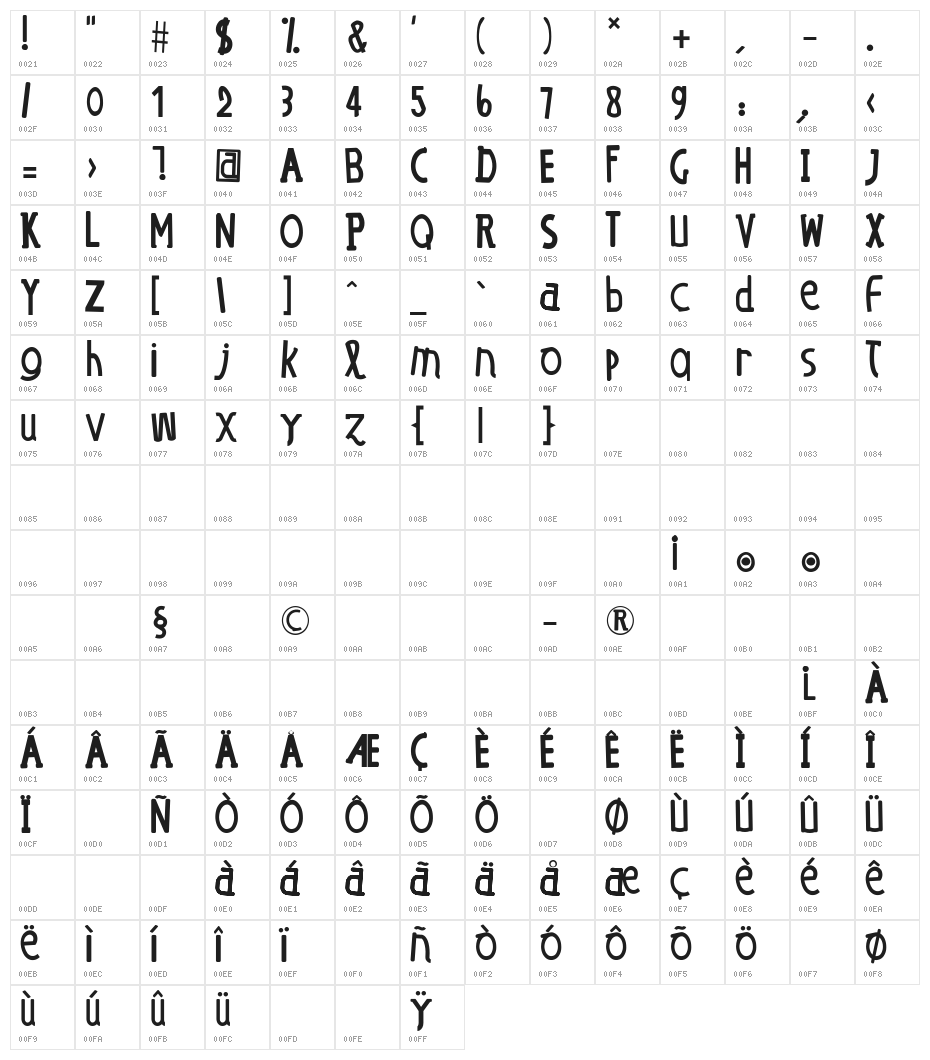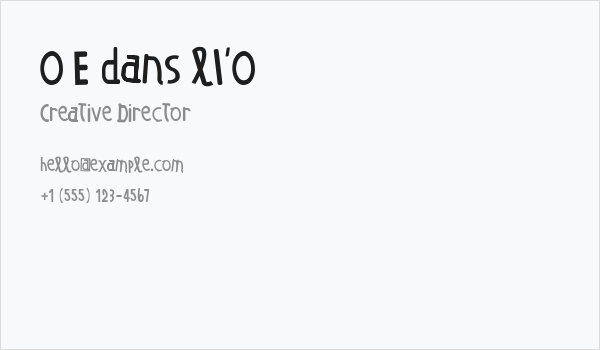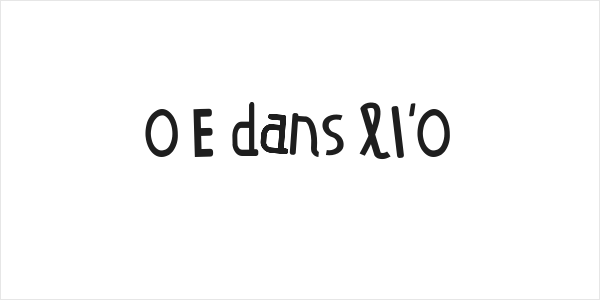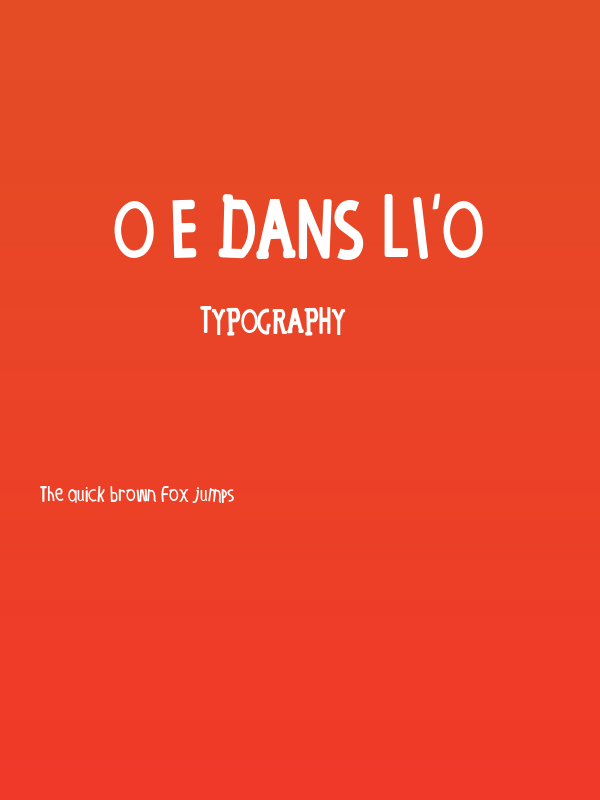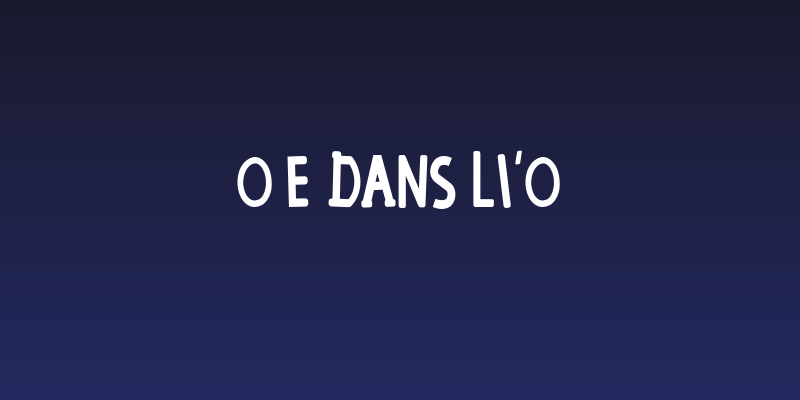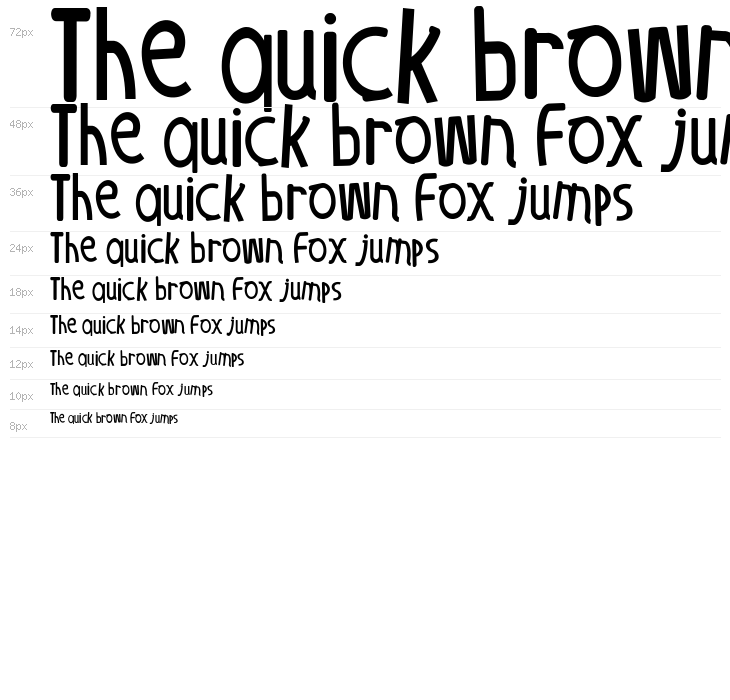
O E dans l'O Font
O E dans l'O Description
This font features a playful and quirky design with a unique blend of rounded and angular elements. The uppercase letters exhibit a bold presence with slightly exaggerated curves, while the lowercase letters maintain a consistent flow with a touch of whimsy. The numerals are distinct and easy to read, each with its own character. Special characters are creatively designed, adding to the font's overall charm. The font's style is both approachable and distinctive, making it suitable for a variety of creative projects.
| Overall Style | Playful, Quirky |
| Proposed Projects | Ideal for children's books, playful branding, creative posters, and unique invitations. |